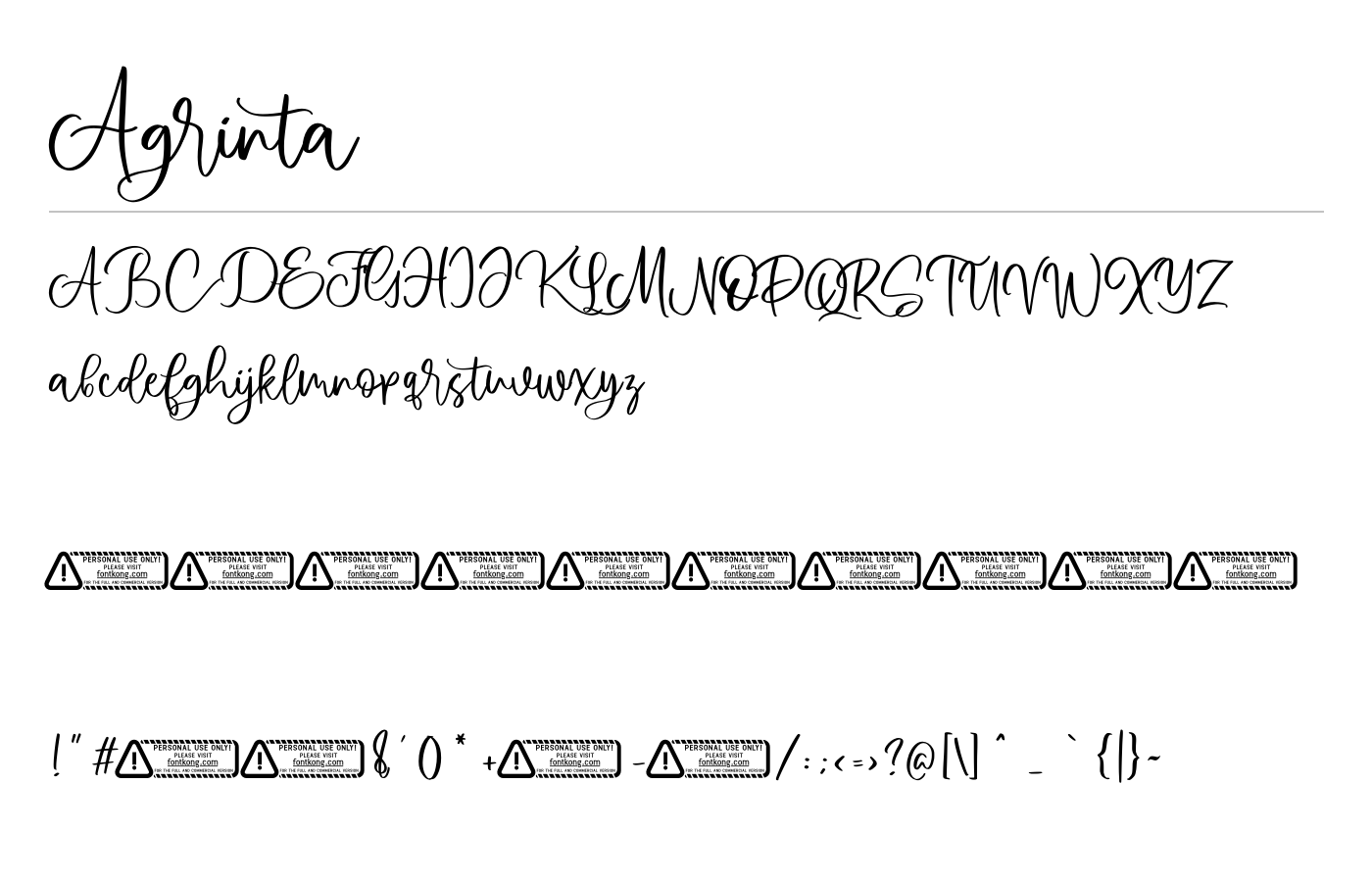
Agrinta is an elegant script font with a graceful, handwritten style that combines fluid, delicate strokes with charming loops and swashes. Its light weight and moderate contrast give it a refined, airy feel, making it perfect for projects that require a personal, sophisticated touch such as invitations, branding, and stylish editorial design. This font works beautifully where a friendly yet elegant aesthetic is desired, lending itself well to fashion, beauty, and creative lifestyle brands.
Agrinta Font
About Agrinta Font